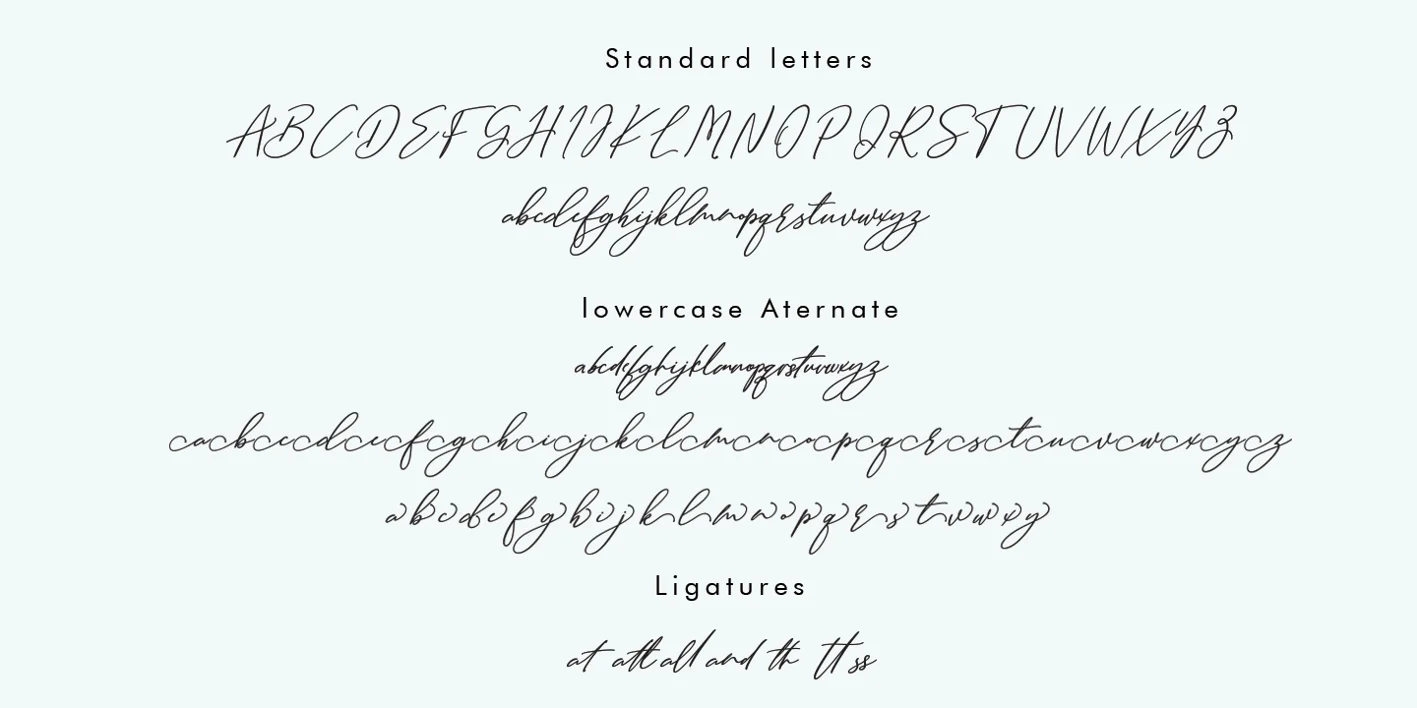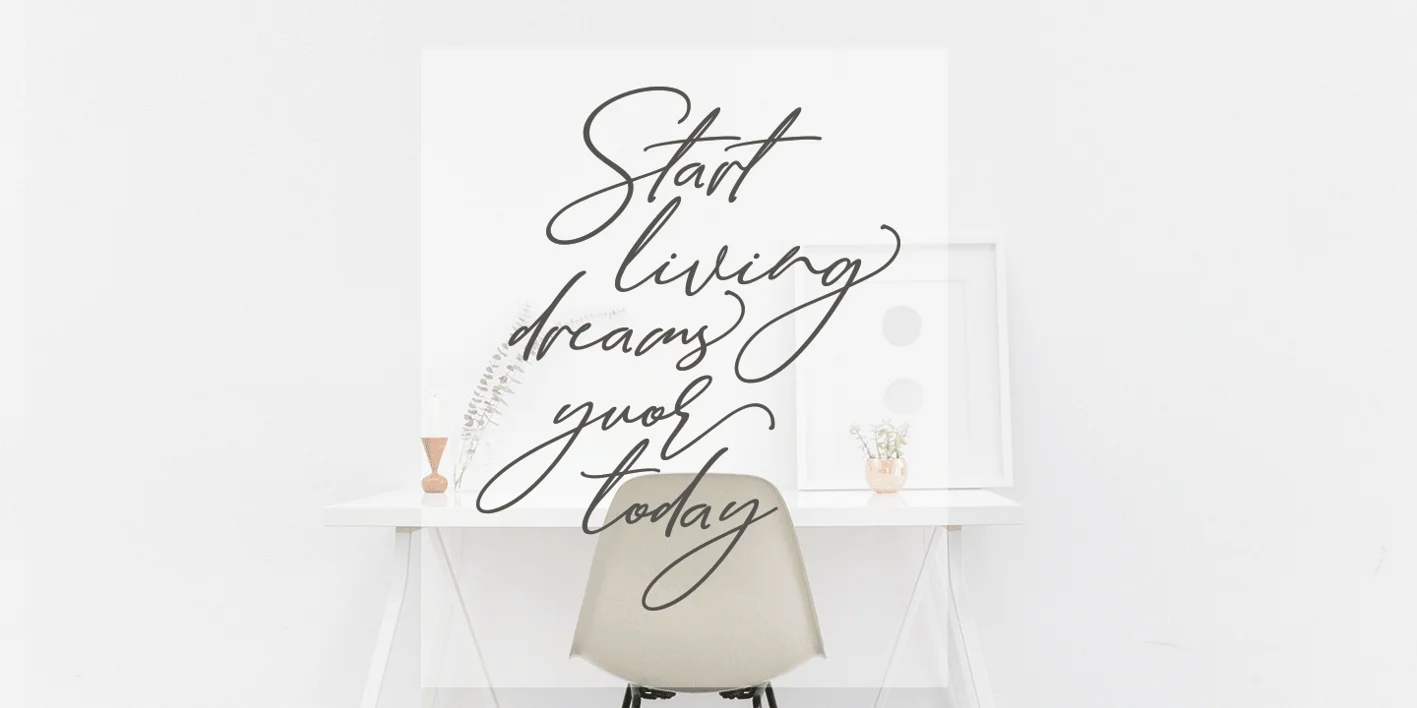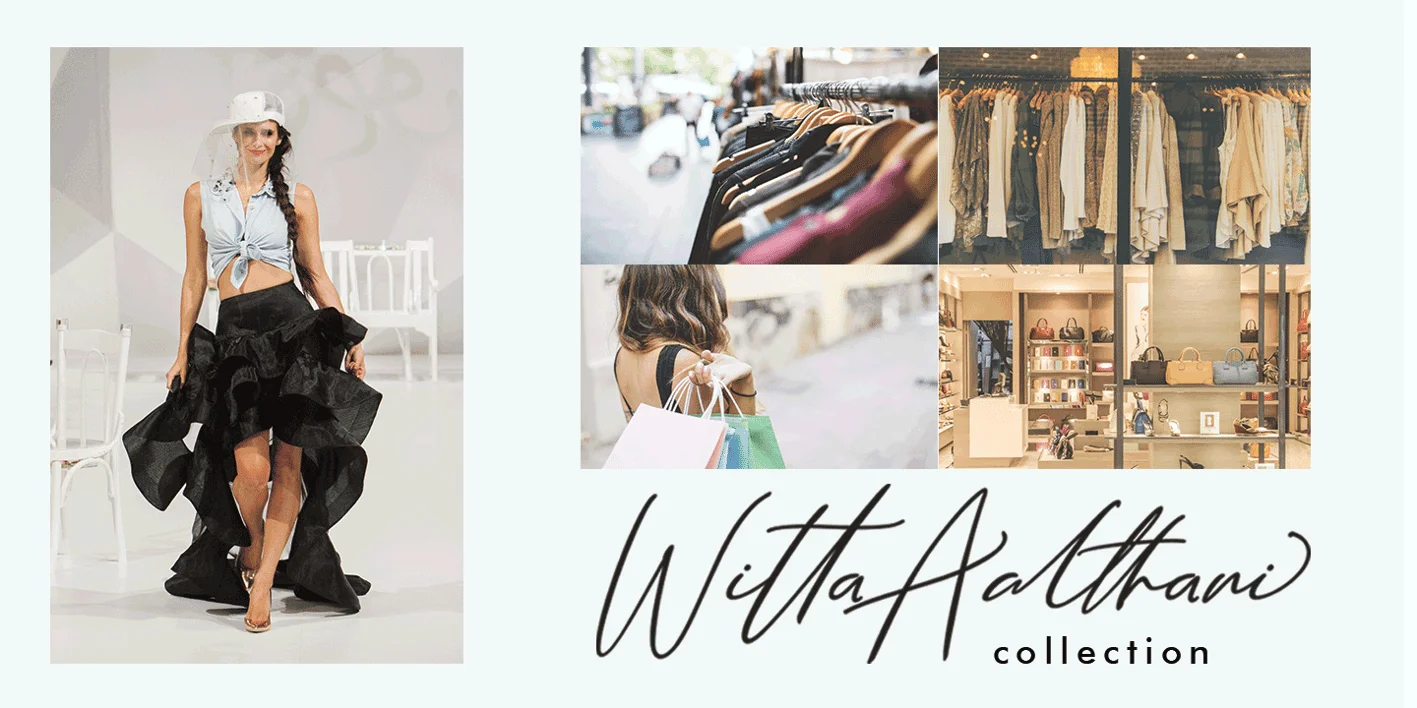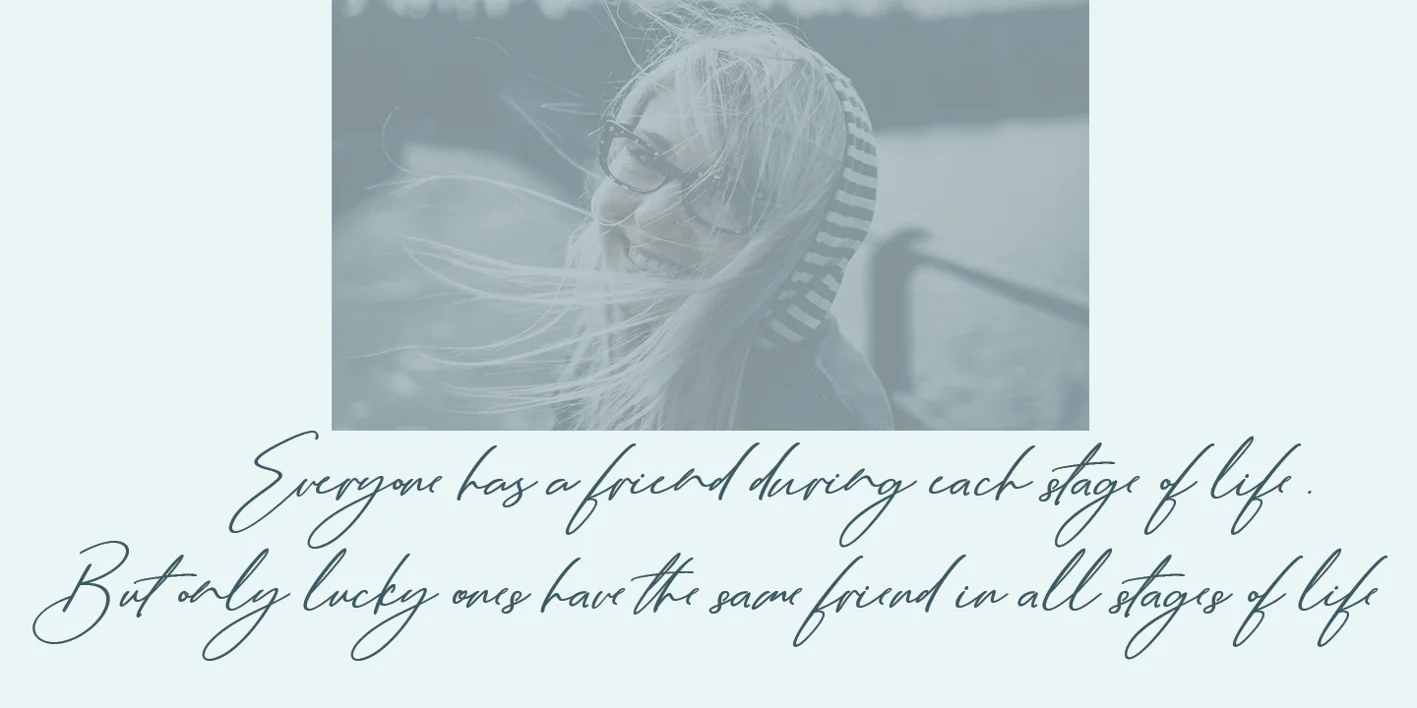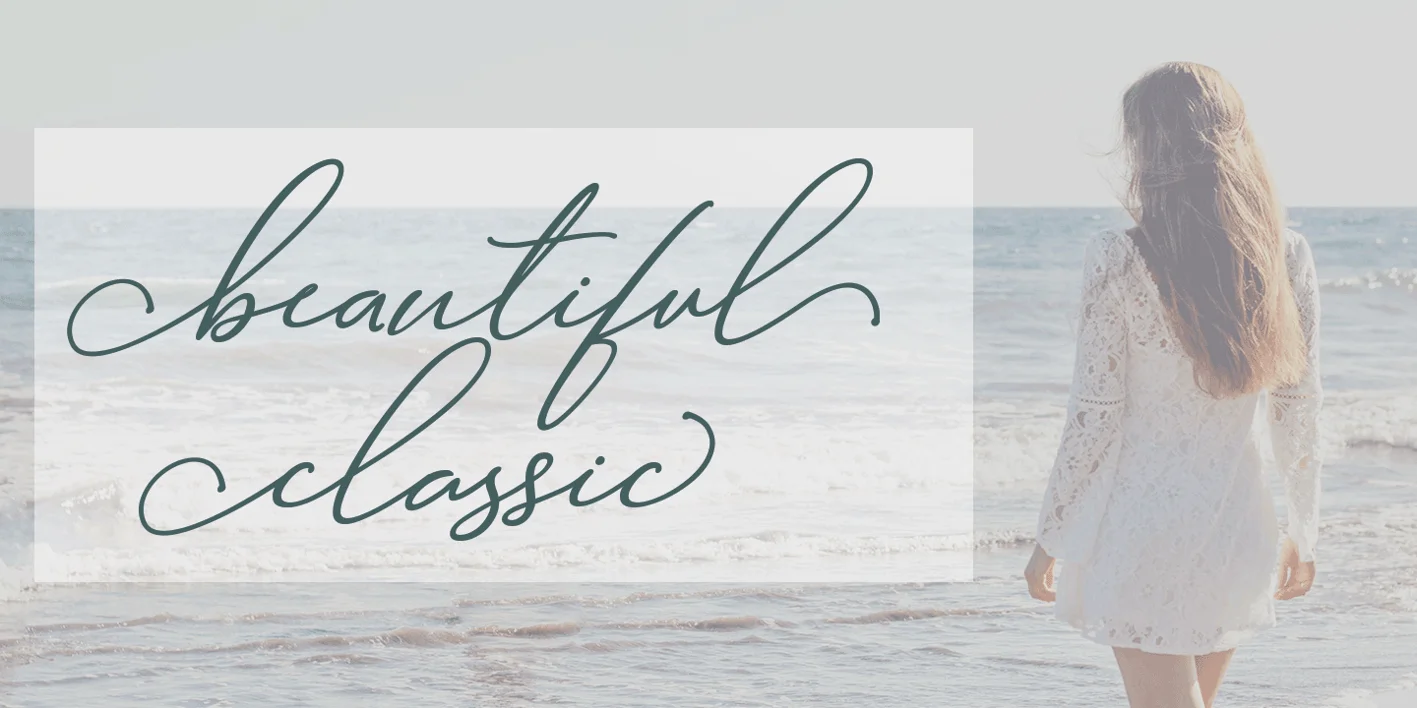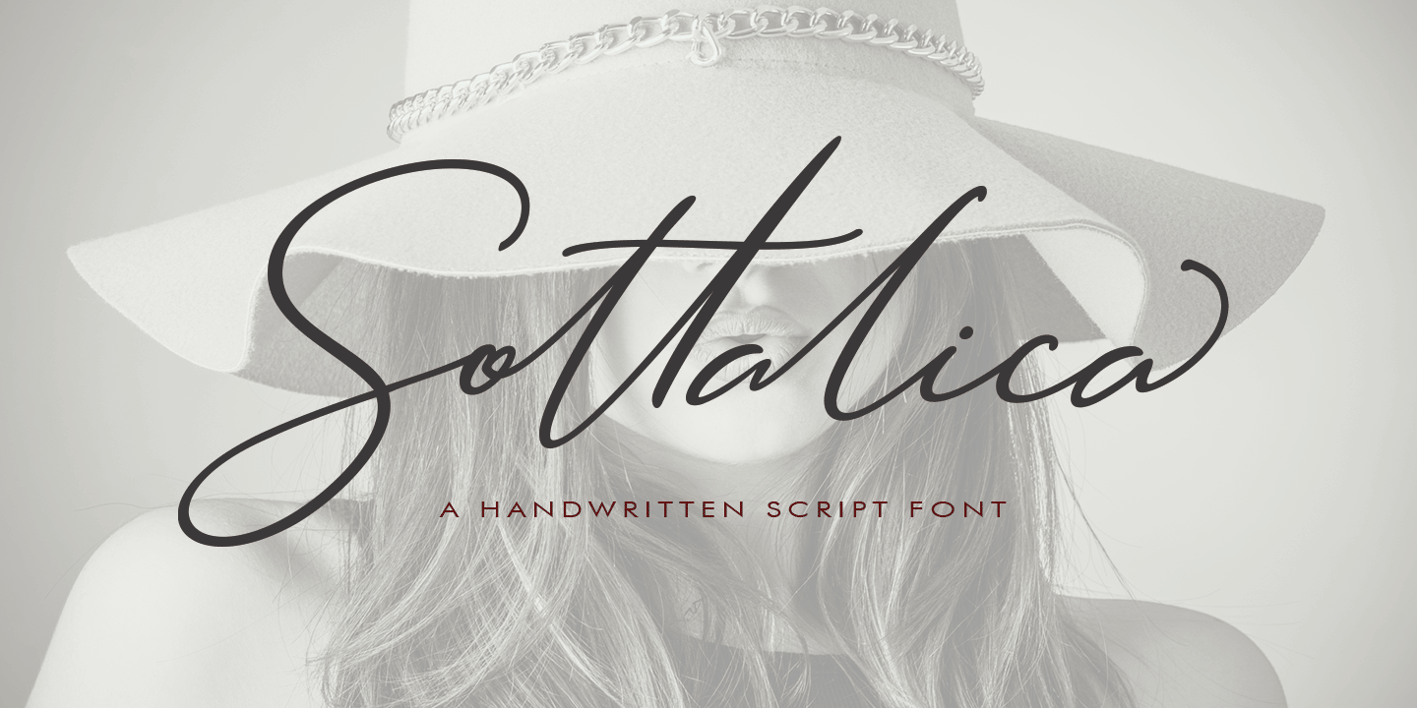
Sottalica Font
Few typefaces manage to balance the kind of restraint that lets content lead with genuine day-to-day practicality. Sottalica is one of them. The typeface brings an elegant, calligraphic sensibility to a broad range of creative disciplines, with optical balance across all weights that holds up whether the work is print-first or screen-first.
In practice, Sottalica proves particularly effective for fashion editorials, high-end cosmetic packaging, advertising campaigns, event signage, signage systems. Designers reaching for it find that the type decisions feel resolved rather than laboured — a useful quality when client timelines are tight.
The range of applications extends to brand identity systems, environmental graphics, greeting cards, perfume labels. That breadth is deliberate: the proportions and spacing were stress-tested across a wide range of mock briefs before the typeface was finalised.
Sottalica sits comfortably alongside both classic and contemporary typefaces in multi-font hierarchies. It takes direction rather than competing for attention — a quality that experienced designers know is harder to find than it appears.
Independent studios handling packaging and editorial work find Sottalica a reliable choice for projects that demand both personality and restraint. The design avoids the self-conscious quirkiness that dates quickly, settling instead for considered distinctiveness that holds up over time.